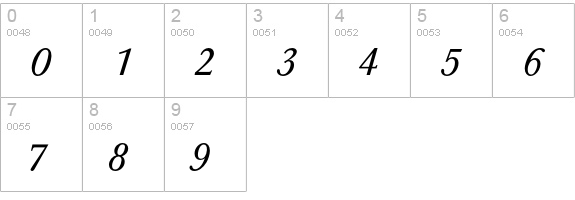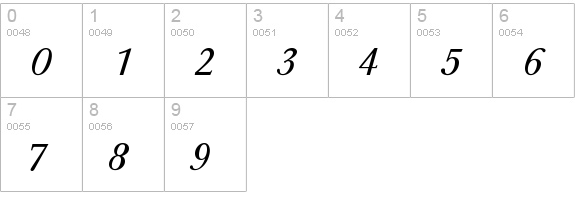
BaskervilleEF-RegularItalic Font Details
BaskervilleEF-RegularItalic font is a sophisticated and elegant typeface that exudes timeless charm and classic appeal. Its slanted italic design adds a touch of refinement and style to any text. Perfect for creating a sense of sophistication in branding, editorial design, or invitations, this font is a versatile choice for any project. What makes BaskervilleEF-RegularItalic font even more appealing is that it is available for free download at FontsMarket.com. This means you can easily access this beautiful typeface and use it in your designs without any cost. Don't miss the opportunity to enhance your projects with the grace and elegance of BaskervilleEF-RegularItalic font, now just a download away at FontsMarket.com.